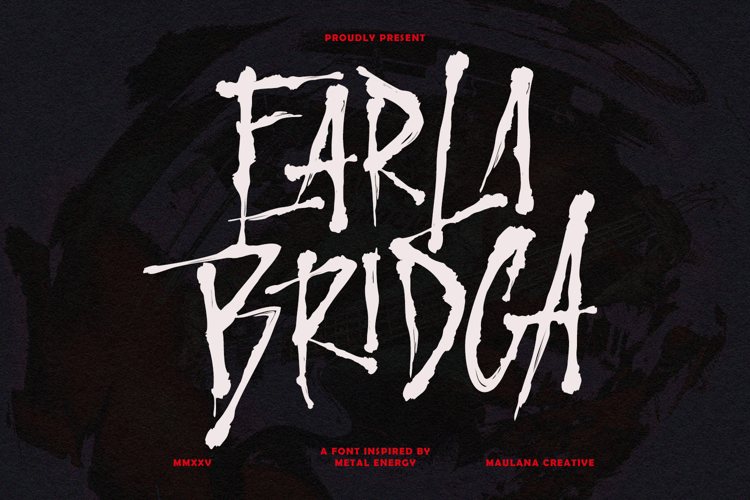
Earla Bridga Metal Energy Brush Font
Unleash the raw, electrifying power of the metalcore scene with Earla Bridga!
Inspired by the aggressive energy, jagged intensity, and DIY aesthetic of metal music, mosh pits, and hardcore culture, Earla Bridga is more than just a typeface it's an experience. Every brush stroke is designed to convey the chaotic yet captivating spirit of a live show.
Perfect for projects that demand a bold, unapologetic, and high-energy look, Earla Bridga is your go to font for:
- Band logos and merch, create striking, memorable visuals for metal, hardcore, punk, and rock bands.
- Album art, capture the raw intensity of music and concert promotions.
- Event, add an authentic, hand-drawn edge to your extreme event promotions.
- Alternate characters and ligatures, hand crafted alternates and stylistic ligatures provide flexibility for unique, customized layouts.
- High energy texture, the rough, brush metal style ensures your designs look loud and dynamic.
- Ligature and Alternate